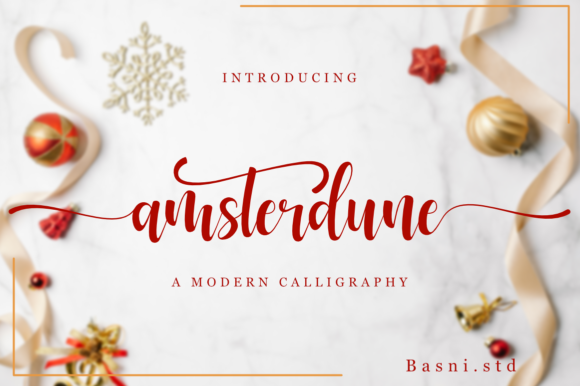
The Charming Amsterdune Font: A Designer’s Delight
I’ll never forget the time I was working on a wedding invitation project, and my client asked me to create a custom design that exuded elegance and sophistication. As I scrolled through my font library, I stumbled upon Amsterdune, and it instantly stole my heart. Its charming and elegant vibe made it the perfect fit for the project, and I knew I had found the one. In this article, I’ll share my experience with Amsterdune, its features, and how to make the most of this beautiful font.
An Honest Review of Amsterdune
What I Love About Amsterdune ✨
- ✅ Elegant and charming design that adds a touch of sophistication to any project
- ✅ PUA encoded, making it easy to access glyphs and swashes
- ✅ Perfect for wedding invitations, thank you cards, quotes, greeting cards, logos, and business cards
- ✅ Highly customizable, allowing you to create unique designs
- ⚠️ Some users may find the font a bit too ornate for certain projects
- ⚠️ Limited availability of certain characters or symbols
The Backstory of Amsterdune
Amsterdune is a beautifully crafted font that’s inspired by the city’s rich history and cultural heritage. The font’s creator aimed to capture the essence of Amsterdam’s charming streets, canals, and architecture. The result is a font that’s both elegant and charming, perfect for designs that require a touch of sophistication.
Q: What is Amsterdune font?
A: Amsterdune is a beautiful, elegant font that’s perfect for designs that require a touch of sophistication. It’s PUA encoded, making it easy to access glyphs and swashes.
A: PUA (Private Use Area) encoding is a way of encoding font characters that allows for easy access to glyphs and swashes. This means you can easily access and use the font’s special characters and features.
Q: Is Amsterdune easy to use?
A: Yes, Amsterdune is relatively easy to use, especially if you’re familiar with OpenType features and glyphs. You can access these features in various design platforms, including Canva, Adobe Photoshop, and Microsoft Word.